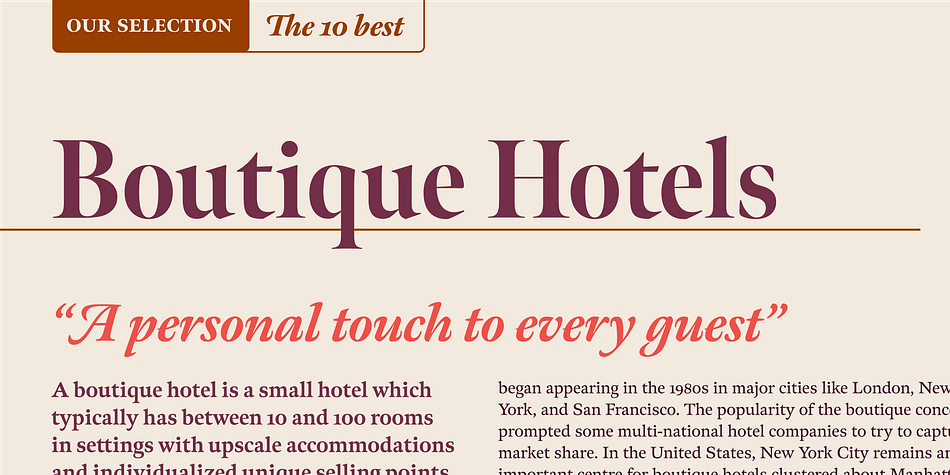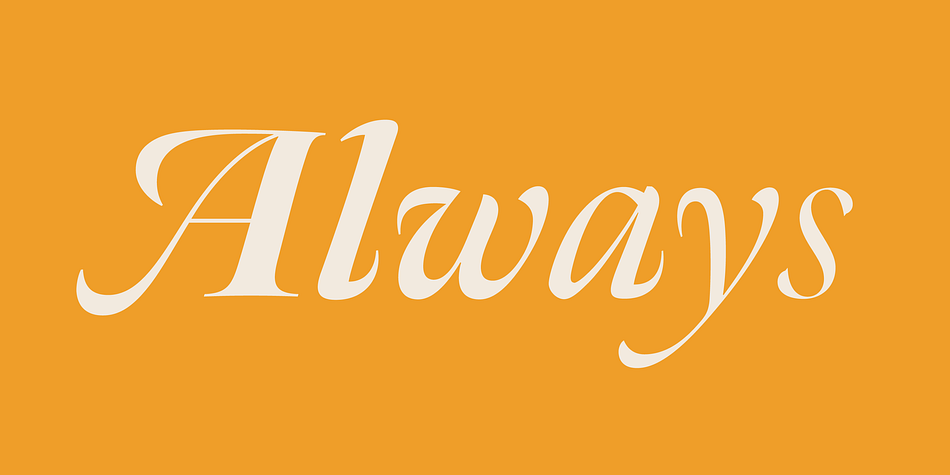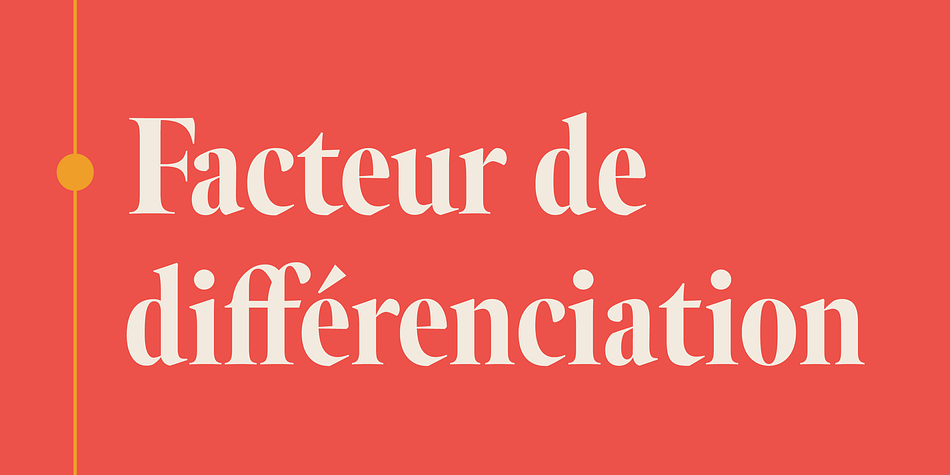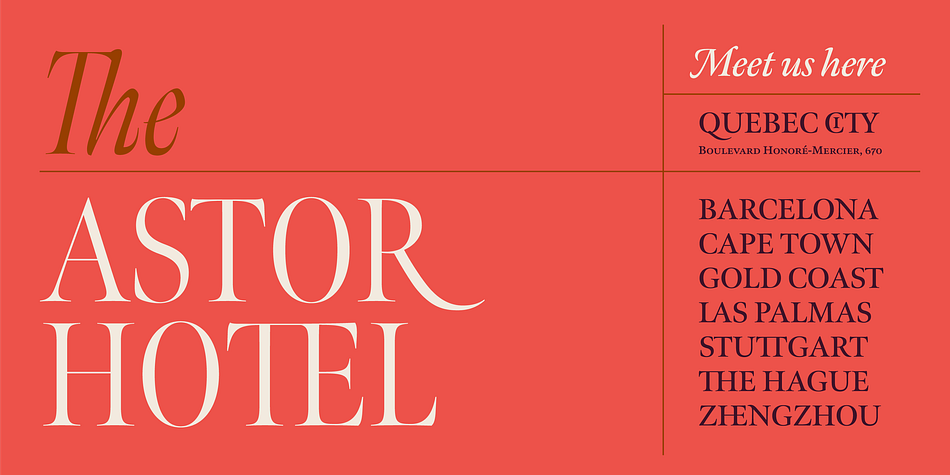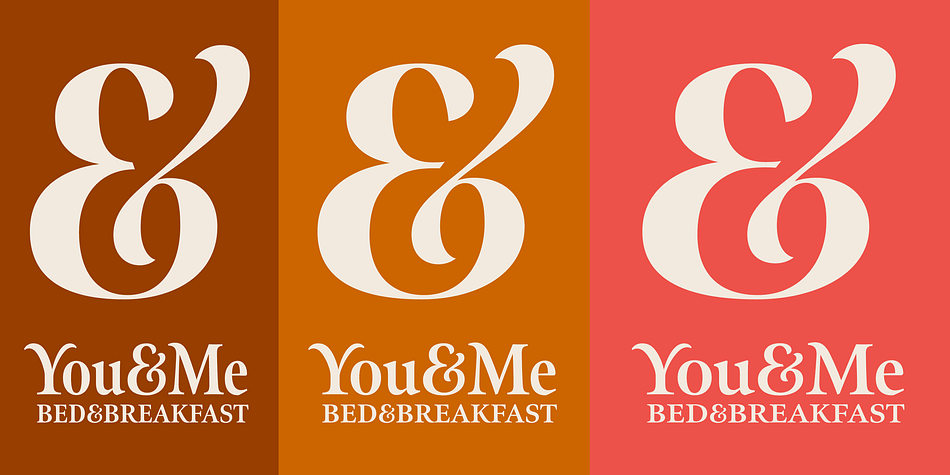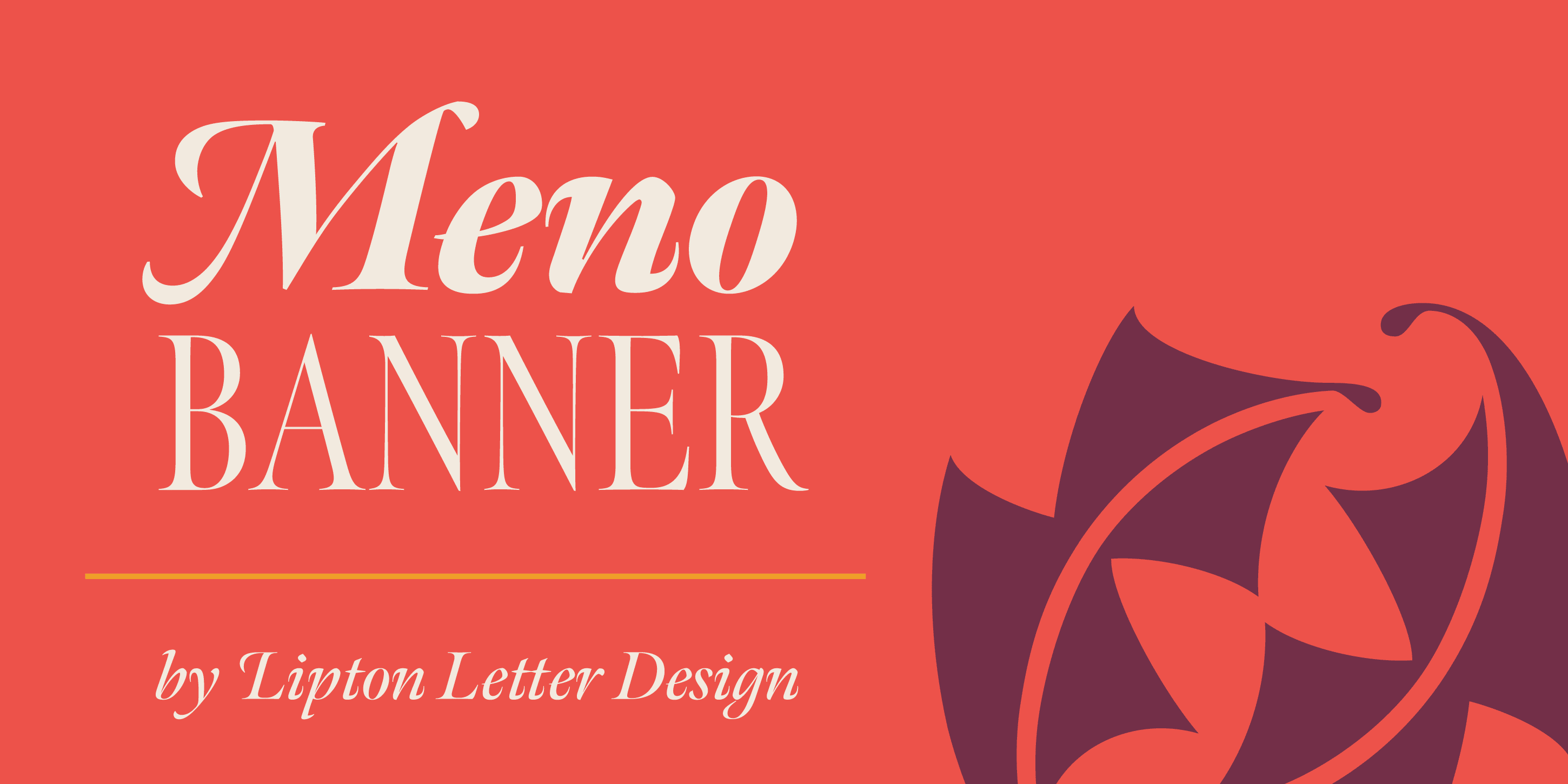
Meno Banner
Designed by Richard Lipton, Meno Banner is a display serif and serif font family. This typeface has thirty-six styles and was published by Lipton Letter Design.
Richard Lipton designed Meno in 1994 as a modest yet elegant workhorse serif family in seven styles.
In 2016, he expanded this spirited oldstyle into a 78–style superfamily.
The romans gain their energy from French baroque forms cut late in the 16th century by Robert Granjon, the italics from Dirk Voskens’ work in 17th-century Amsterdam.
Meno consists of three carefully drawn optical sizes—Text, Display, and Banner, with Condensed and Extra Condensed widths added to the latter two cuts.
Steadfast in text settings, Meno is replete with alternate forms, swashes, and other enhancements that showcase Lipton’s masterful calligraphic hand.
The series offers a complete solution for achieving high-end editorial typography.